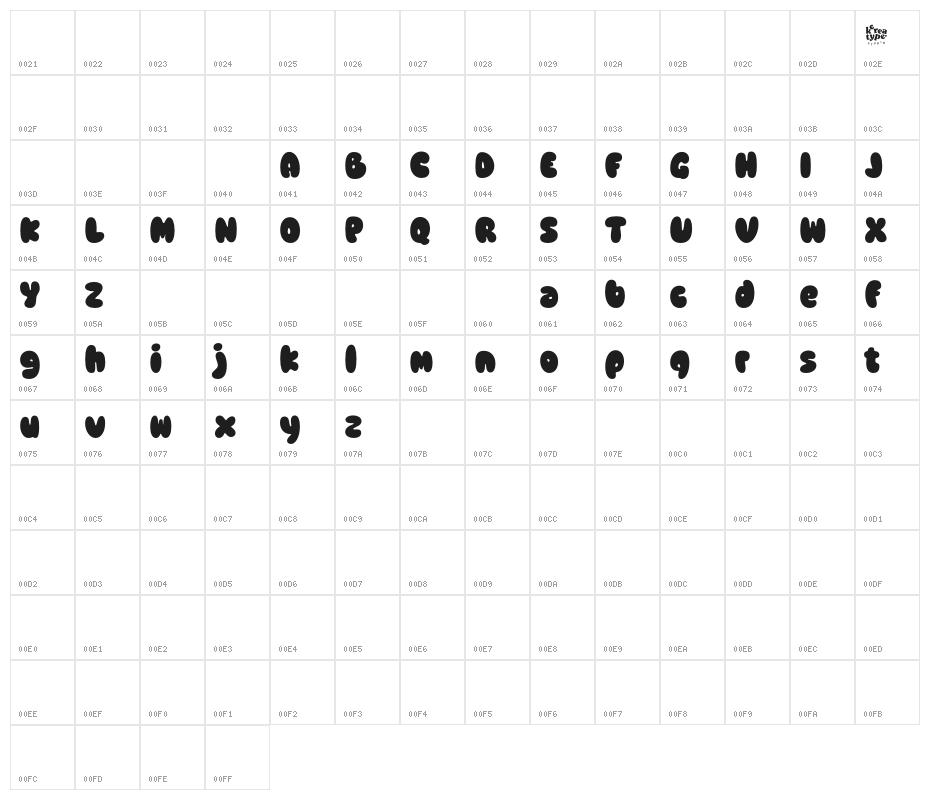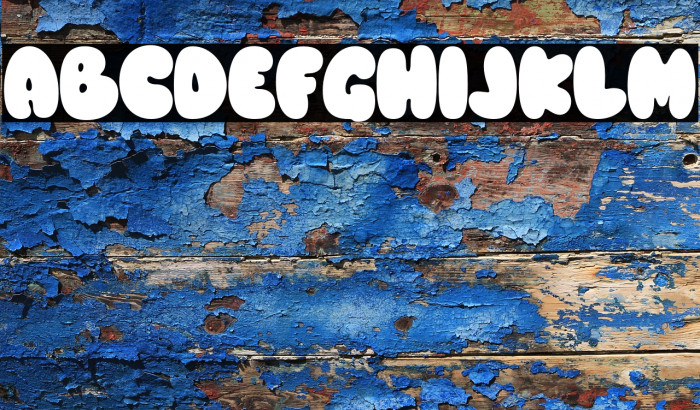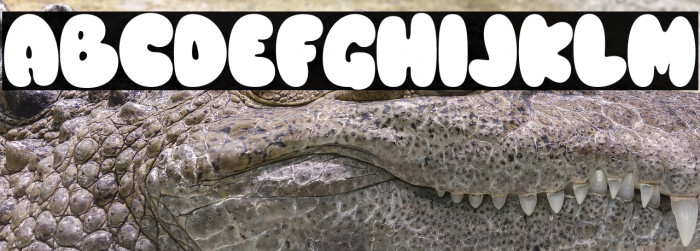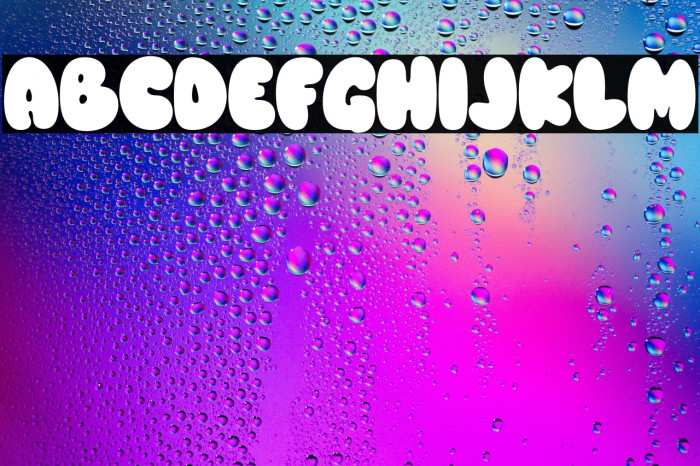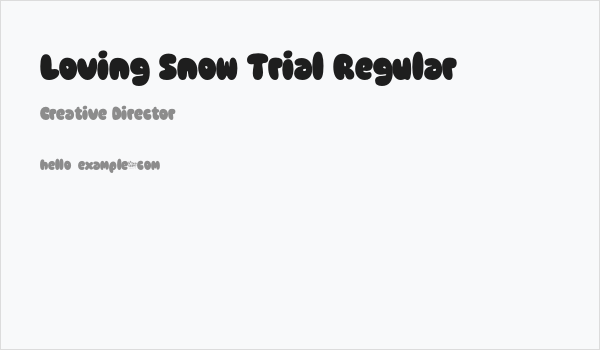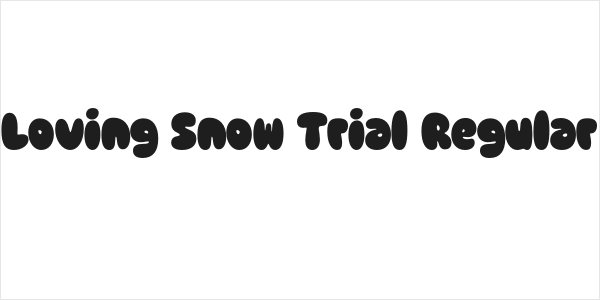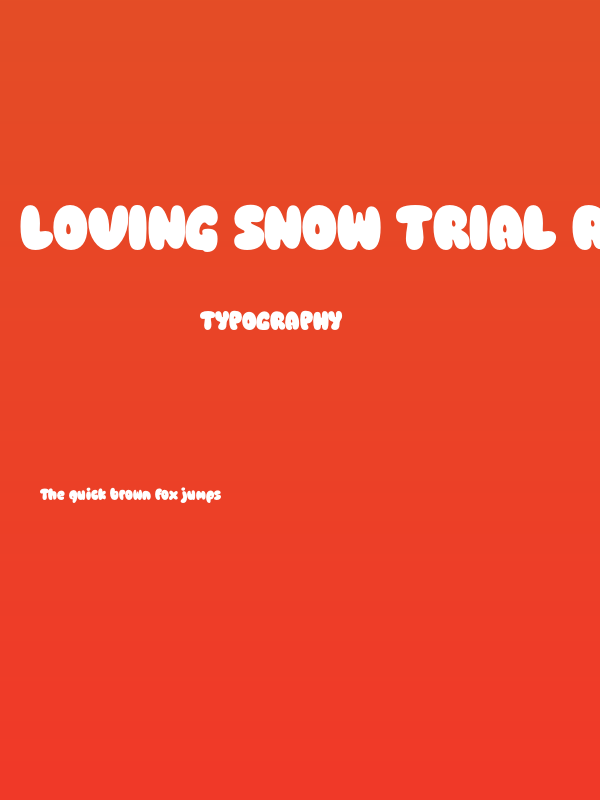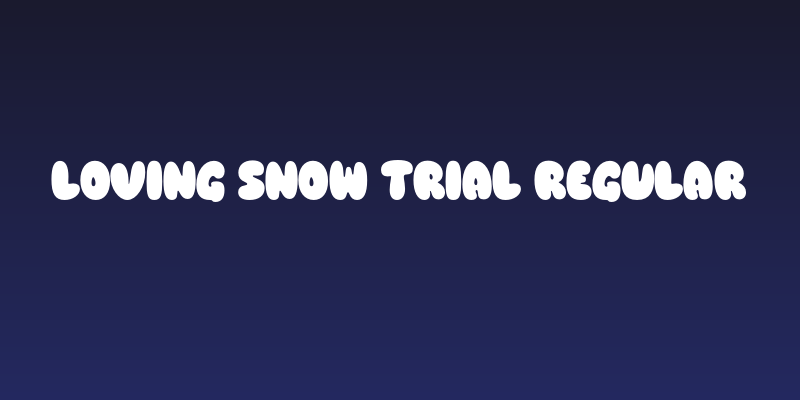
Loving Snow Trial Regular Font
Loving Snow Trial Regular Description
This playful and bold font features rounded, bubble-like characters that exude a sense of fun and whimsy. The letters are thick and substantial, with a consistent stroke width that gives them a uniform appearance. The rounded edges and soft curves create a friendly and approachable feel, making it ideal for designs that aim to convey warmth and cheerfulness. The font's unique style is both eye-catching and memorable, suitable for creative projects that require a touch of personality and flair.